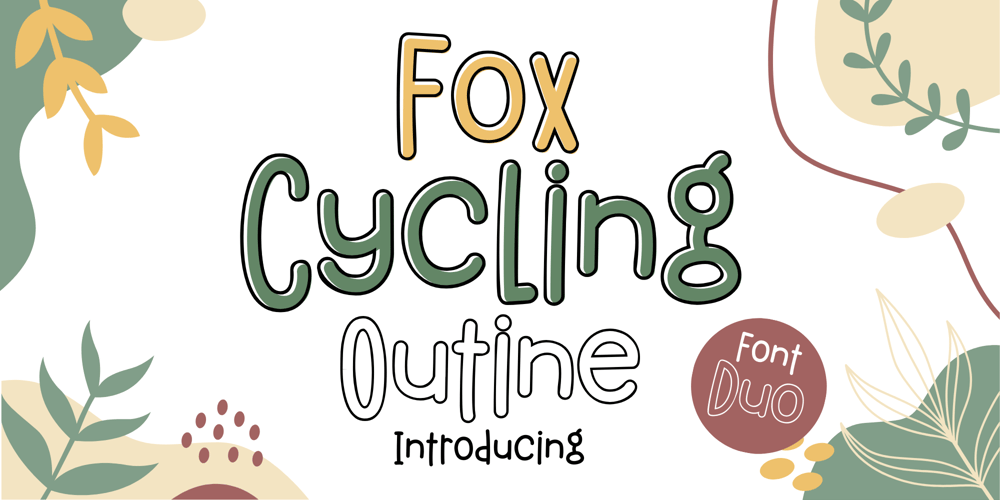
Fox Cycling
Fox Cycling font
Fox Cycling Font Family was designed by Rattana Rattanawan and published by Fox7. Fox Cycling contains 2 styles and family package options. The Fox Cycling and Fox Cycling Outline fonts are a charming and inviting handwritten typeface that exudes warmth and friendliness. Perfect for use in publications, menus, logos, business cards, or even printed on t-shirts, these fonts exude uniqueness. They stand out in everything, regardless of the subject matter. A valuable addition to your font library, as they have the potential to enhance any design creation significantly.